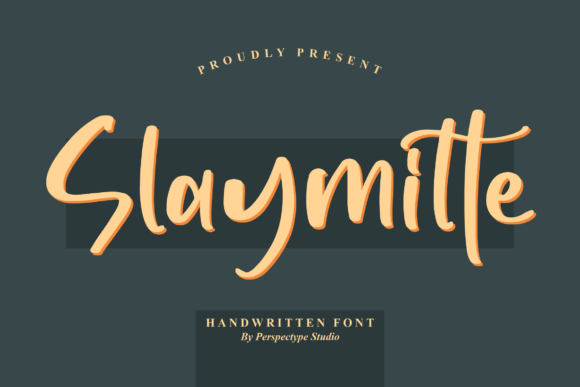
Indulge in the captivating allure of Slaymitte, a handcrafted script font that empowers your designs with sheer elegance and charm. Each letter is meticulously penned, exuding a natural, handwritten aesthetic that adds a touch of warmth and authenticity to any project.
As a script font, Slaymitte effortlessly captures the essence of handwritten calligraphy, evoking a sense of personal connection and heartfelt emotion. Whether you're a photographer seeking to make your images stand out or a designer aiming to create unforgettable logos, Slaymitte's versatility knows no bounds.
Its meticulously crafted glyphs seamlessly blend with high-resolution photographs, adding depth and character to every visual masterpiece. The organic flow of the font perfectly complements the contours of your subjects, creating a harmonious symphony of art and expression.
With Slaymitte, you'll discover endless possibilities for creative expression. Its graceful curves and elegant flourishes add a touch of sophistication to product packaging, while its charming personality shines through on mugs, greeting cards, and invitations. Embrace the power of Slaymitte and let your designs bloom with a touch of handmade magic.
Unlock the beauty of Slaymitte today and elevate your projects to new heights. Let the lyrical dance of its letters ignite your imagination and weave a tale of timeless elegance. Each use of this font becomes a testament to your discerning taste and profound appreciation for the artistry of handwritten expression.